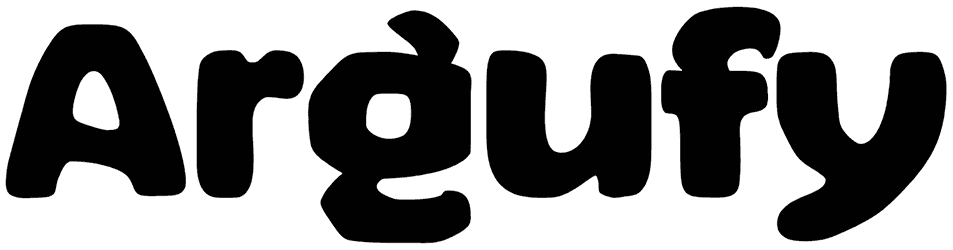
Argufy Font
A Cricut font such as Argufy has the real potential to provoke a psychological reaction in the audience’s minds and easily convince them to follow all of your artwork including social media posts, headings, stickers, or product packaging. Aside from not supporting numbers, this geometric font can lead to a feeling of jauntiness, majesty, or dynamic.